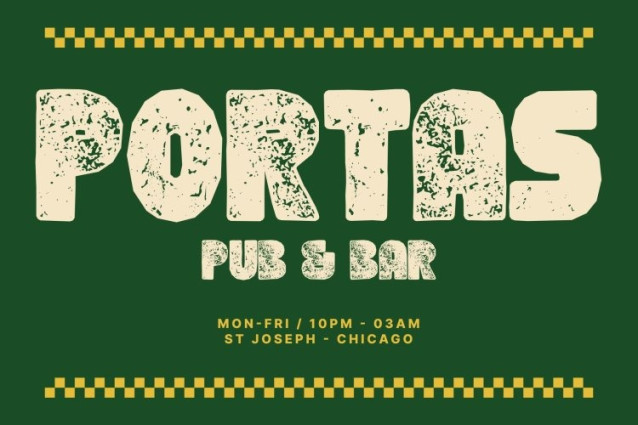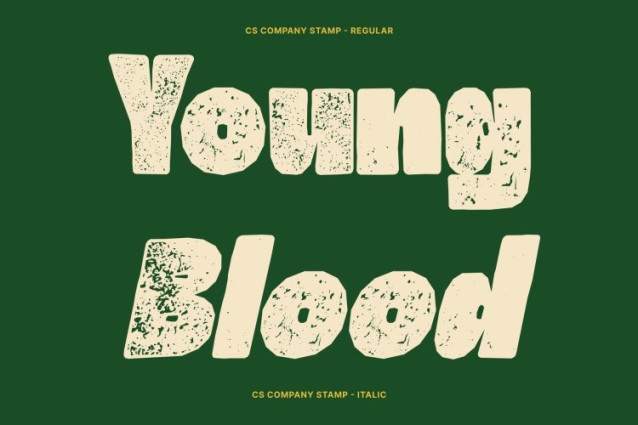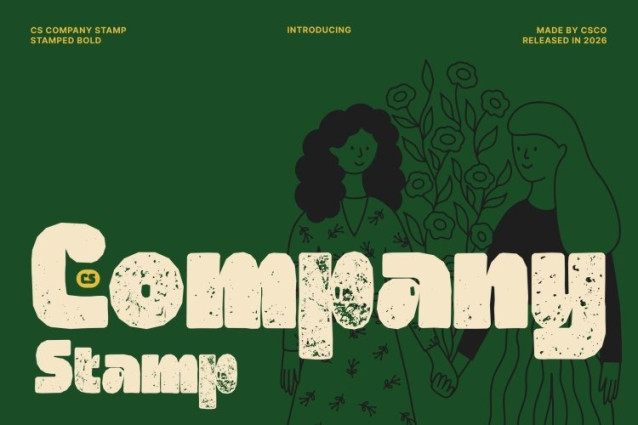
CS Company Stamp Font
CS Company Stamp Font – This is a bold sans-serif font that blends a funky, cute aesthetic with strong, confident shapes. Its rounded forms and thick strokes create a cheerful and energetic look, making every word feel lively and full of character. Enhanced with a stamp effect, the font gains a subtle textured finish that adds a handcrafted, vintage-inspired charm to its playful design.
Rounded Shapes with Textured Warmth
The soft curves and bold structure give a friendly, approachable personality. The stamp texture introduces slight ink variations and gently worn edges, adding depth and an organic feel that balances its clean, modern construction with a touch of nostalgic warmth.
Youthful Energy with Strong Visual Impact
This is designed to capture attention while maintaining clarity. Its bold weight ensures excellent visibility, while its playful forms communicate joy, creativity, and positivity perfect for designs that aim to connect with a wide and youthful audience.
Perfect for Cheerful Branding and Creative Projects
Ideal for logos, packaging, posters, social media graphics, and playful branding, brings a vibrant and engaging tone to any project. Its combination of bold sans-serif strength and vintage stamp texture creates a distinctive typographic style that feels fun, expressive, and memorable.